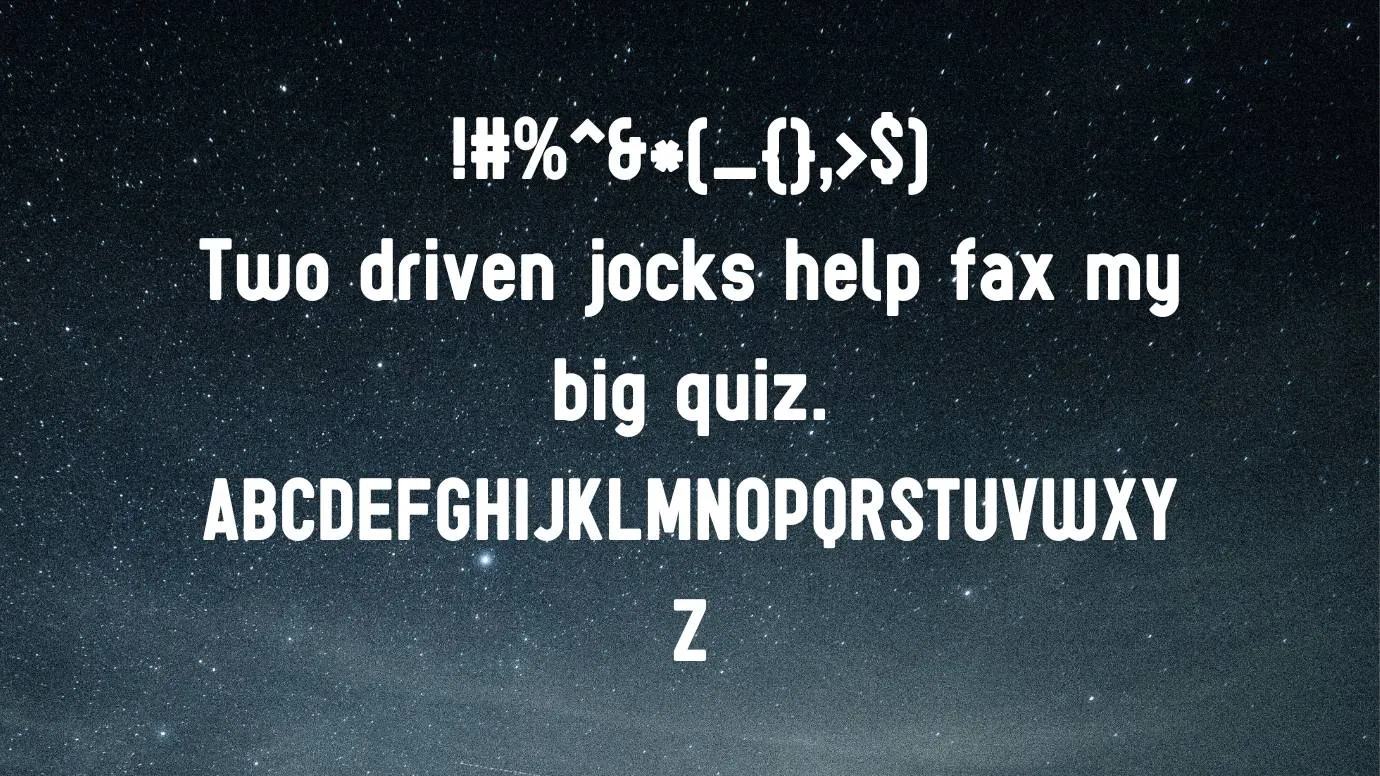
Sugo Pro Font, a display typeface, will be introduced in this article. Francesco Canovaro created this lovely font. Zetafonts shared this display font. It has bold, rounded-corner characters. This font is very readable and ideal for a variety of design needs.
Along with light and bold, this bold typeface works perfectly for its three weights and ten styles. This adorable typeface works well for editorial use and sports branding. Greek, English, French, and numerous other tongues are spoken abroad.
This mind-blowing typeface is the ideal substitute for the bold display typeface Dream MMA. This stylish font is also ideal for use in titles, headlines, and design logos. This typeface is very similar to the blade runner font.
View of Sugo Font
Sugo Font is characterized with sleek and clean minimalist look. The family includes five weights. This Font is a versatile typeface that can be used in a variety of design projects. Down here you are able to see the features of this font which comprises alphabet structure.
This elegant, bold typeface can be used to design stunning book covers, receipts, logos, and other documents. It can be used to write chic names for various hotels, stores, restaurants, and malls. This font allows you to make vibrant, bold designs.
This lovely font is ideal for use in posters, ads, and copyright-related projects. Using this elegant typeface will help your designs become more distinctive and well-liked.
This font can be used for packaging and product titling. The majority of designers who want to create their website or other design projects find it useful.
Sugo Font is what kind of a font?
Francesco Canovaro is the designer of this lovely typeface, which is categorized as a display typeface. Zetafonts received a copy of this font.
What other fonts are there to Sugo Font?
The best replacement font for this typeface, which also has a bold appearance, is cocogoose.